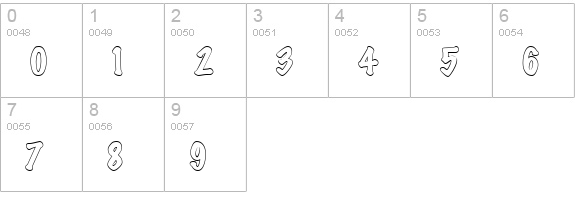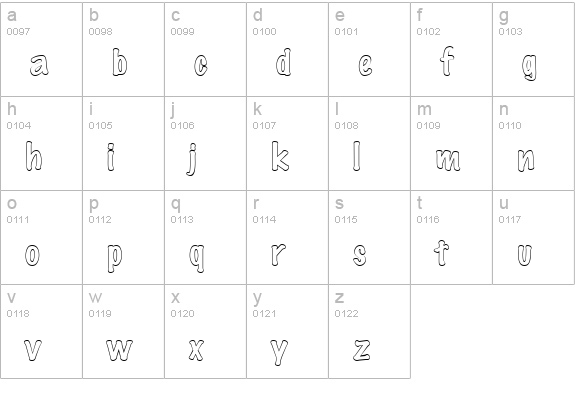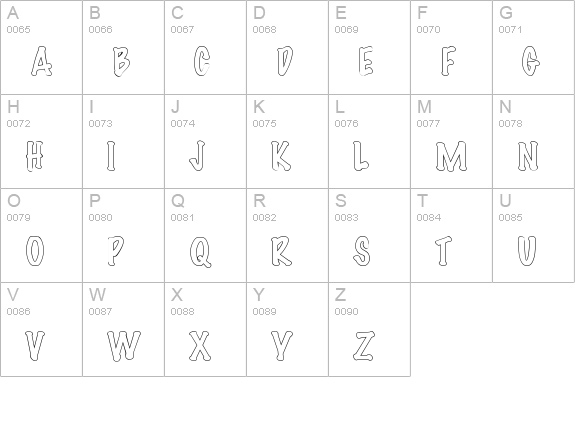
AntaresOpen Font Details
AntaresOpen is a stunning and versatile font that is perfect for a wide range of design projects. With its clean lines and modern aesthetic, this typeface exudes elegance and sophistication. Whether you're creating a sleek logo, eye-catching poster, or stylish branding materials, AntaresOpen is sure to make a lasting impression. Best of all, AntaresOpen is available for free download at FontsMarket.com. This means you can easily access this high-quality font without any cost, making it a valuable addition to your font collection. Don't miss out on the opportunity to enhance your designs with the timeless beauty of AntaresOpen. Download it today and let your creativity shine!